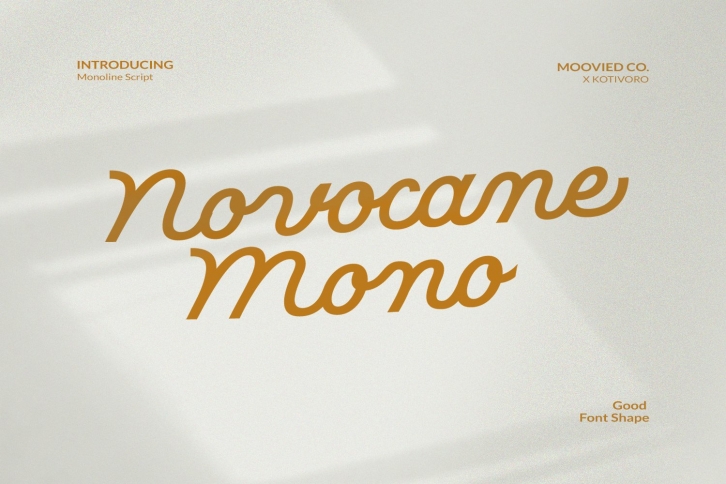
Novocane Monoline Script is a beautiful chic script that is suitable for branding, wedding invitations, and other romantic projects. anything.
-Basic Latin A-Z and a-z
• Symbols
• Ligature
• Kerning